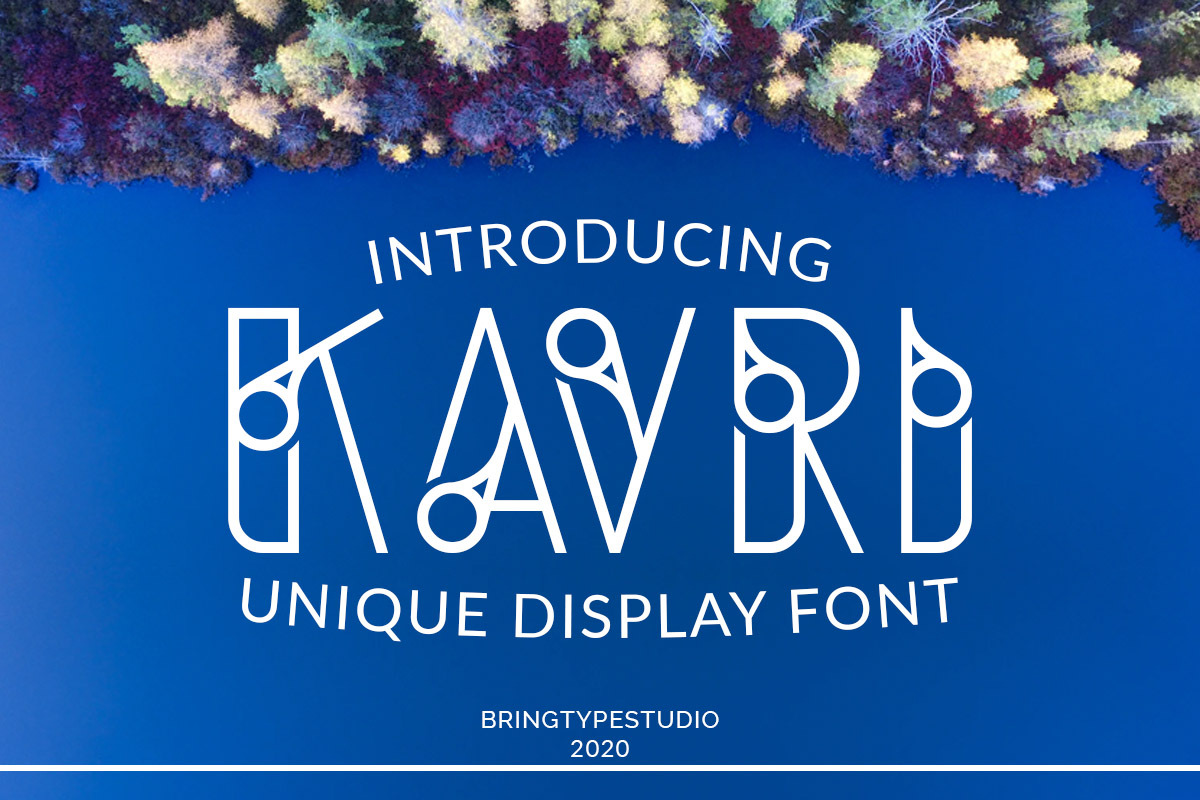
Kavri Display Font
Hello, this is a very unique KAVRI font I have ever made, this font is perfect for display fonts,
KAVRI is perfect for your projects in the fields of design such as logos, design branding, wedding design, social media, advertising, product packaging, product design, labels, photography, stationery, and any project that requires handwriting tastes.